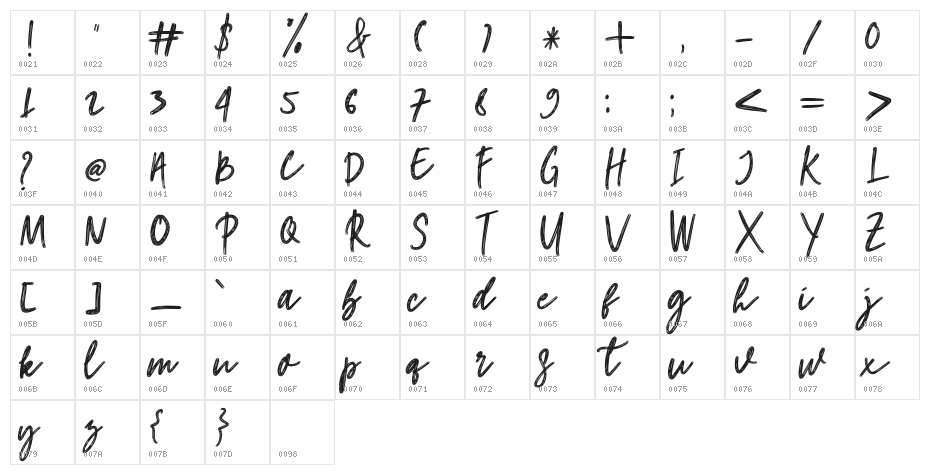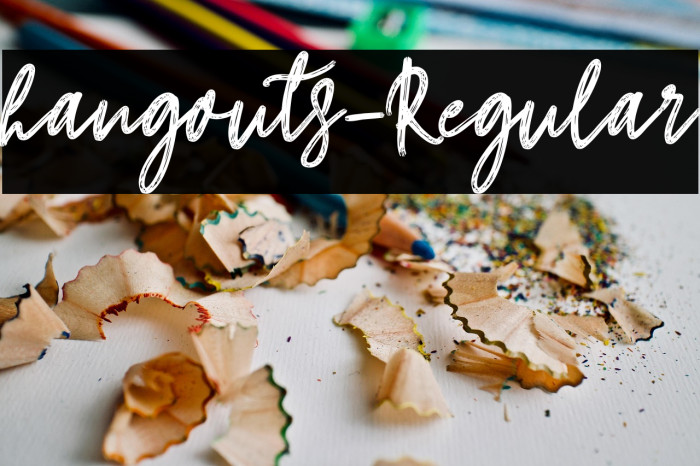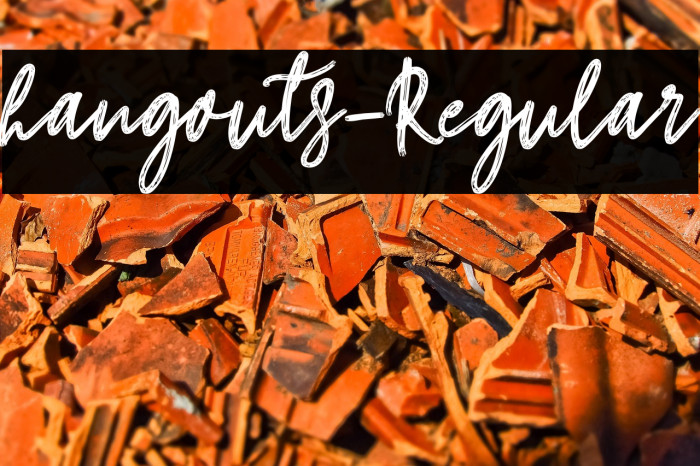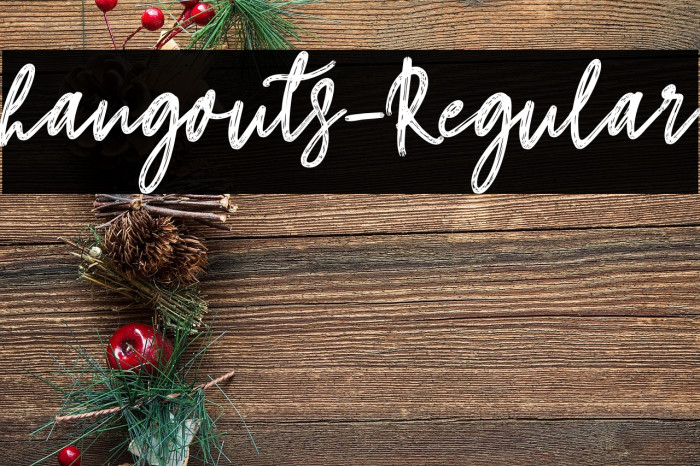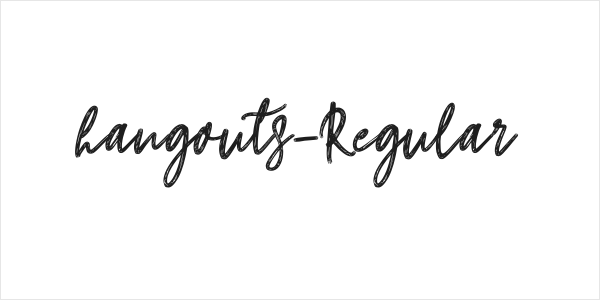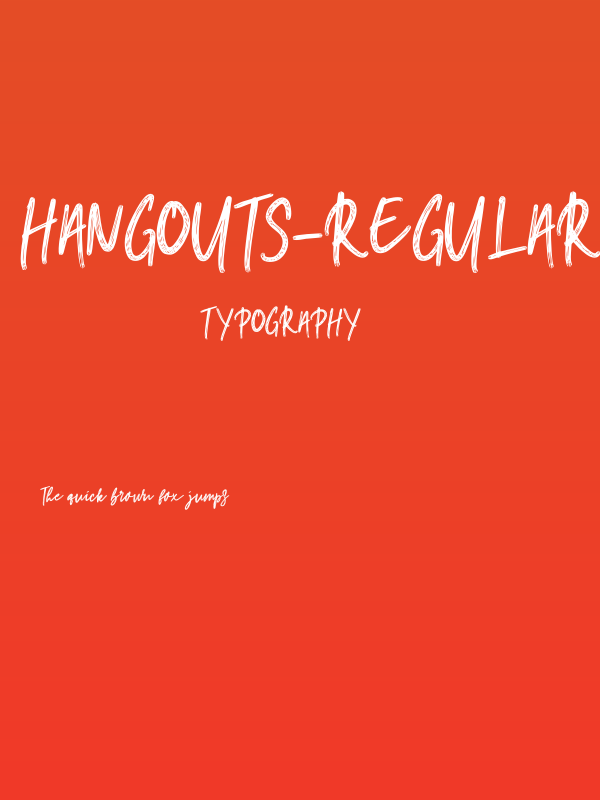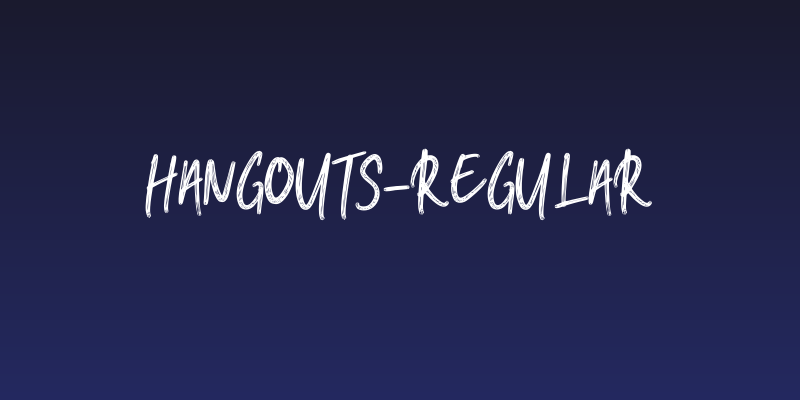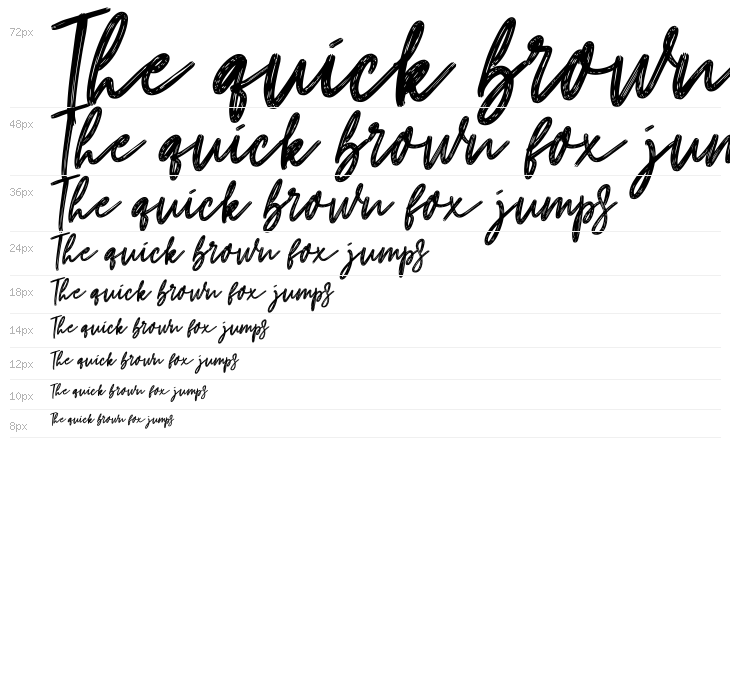
hangouts-Regular Font
hangouts-Regular Description
This font features a dynamic, handwritten style with a playful and energetic appearance. The letters are irregular and slightly slanted, giving them a casual and informal feel. The strokes are bold and varied, with a textured look that mimics the effect of a marker or brush pen. The uppercase and lowercase letters maintain a consistent style, with the uppercase being slightly more structured. Numbers and special characters follow the same aesthetic, ensuring a cohesive look across all characters. This font is perfect for projects that require a personal touch or a creative flair.